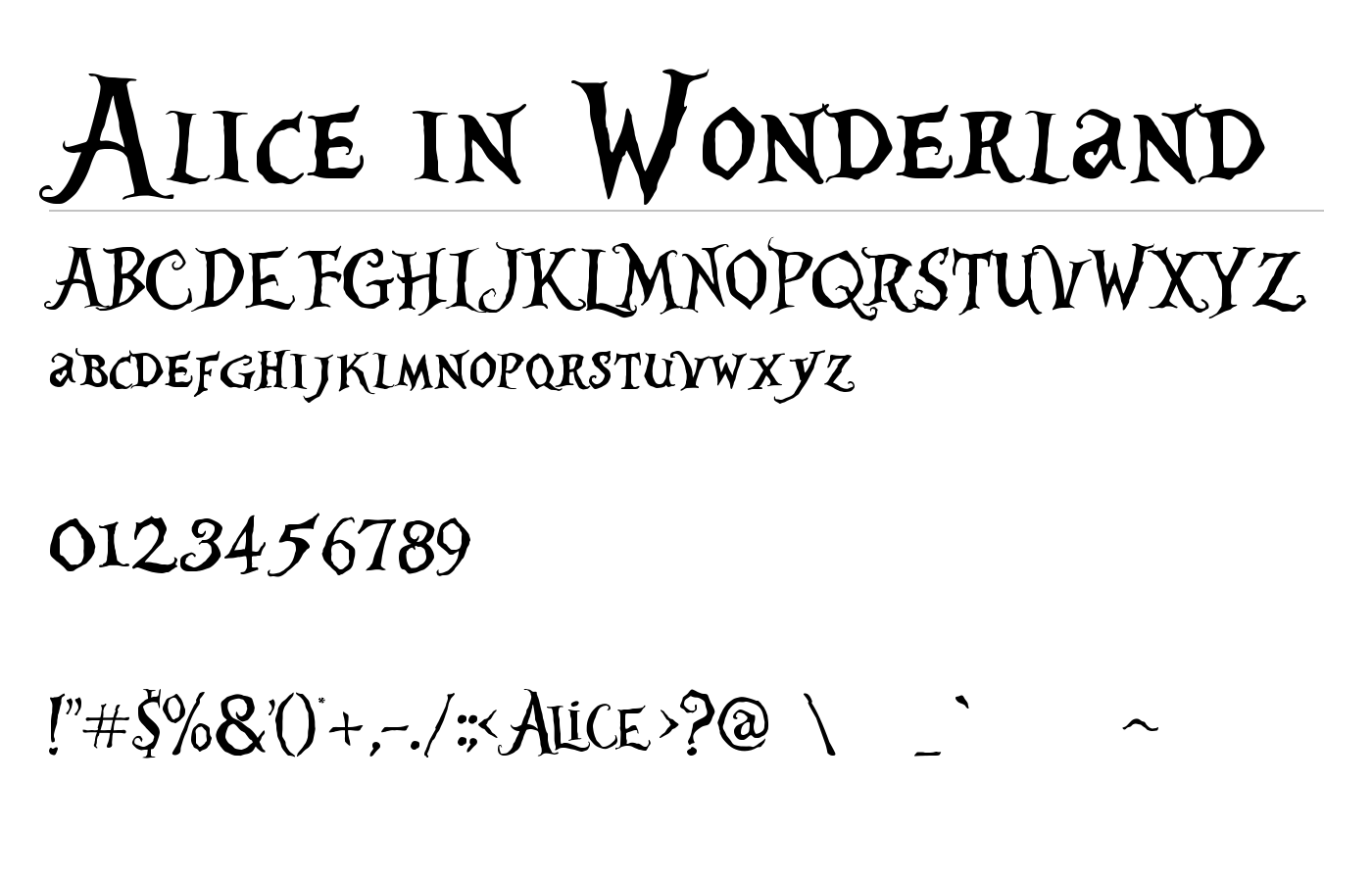
Alice in Wonderland is a whimsical serif font with a hand-drawn feel, featuring uneven, slightly jagged strokes and quirky letter shapes that evoke a magical, storybook mood. Its playful yet slightly gothic appearance makes it perfect for fantasy themes, children’s books, and creative projects seeking a quirky, imaginative vibe. This font works best in headlines, logos, and decorative uses where personality and charm are key.
Alice in Wonderland Font
About Alice in Wonderland Font
| Font family | Alice in Wonderland Font |
| Release date | 2010-04-14 |
| Designer | Marco Trujillo López |